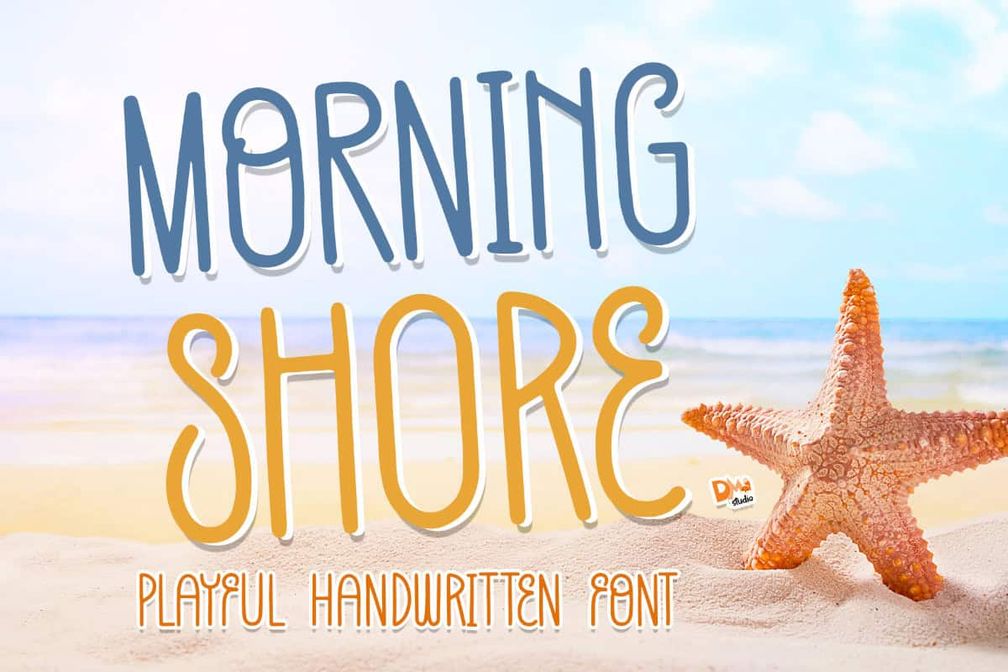
Morning Shore Font
Morning Shore Font embodies the serene beauty of a tranquil morning by the shore. With its elegant letterforms and calming design, this font captures the essence of peaceful seaside mornings, making it perfect for a variety of design projects. Elevate your creations with the tranquil and graceful aesthetic of the Morning Shore Font.
1. Tranquil and Elegant Design: Morning Shore Font features elegant letterforms inspired by the serene beauty of a morning by the shore, adding a touch of tranquility to your designs.
2. Versatile Application: Ideal for various design projects, including branding, invitations, posters, and more, bringing a sense of calm and sophistication to your creations.
4. Uppercase and Lowercase Letters: Includes both uppercase and lowercase letters for creative flexibility and versatility.
5. Punctuation and Symbols: Comprehensive set of punctuation marks, numerals, and symbols for consistent and versatile use across various projects.